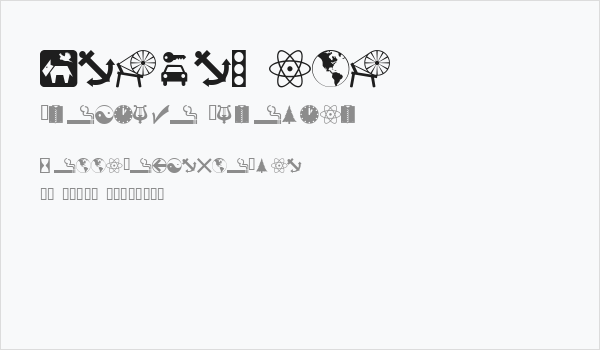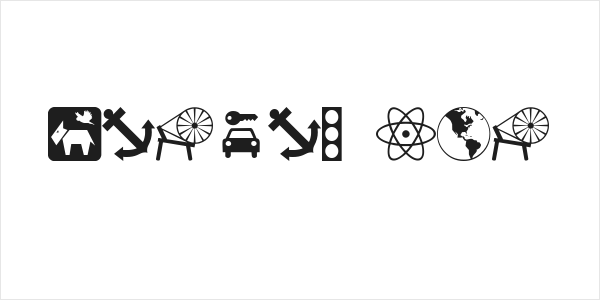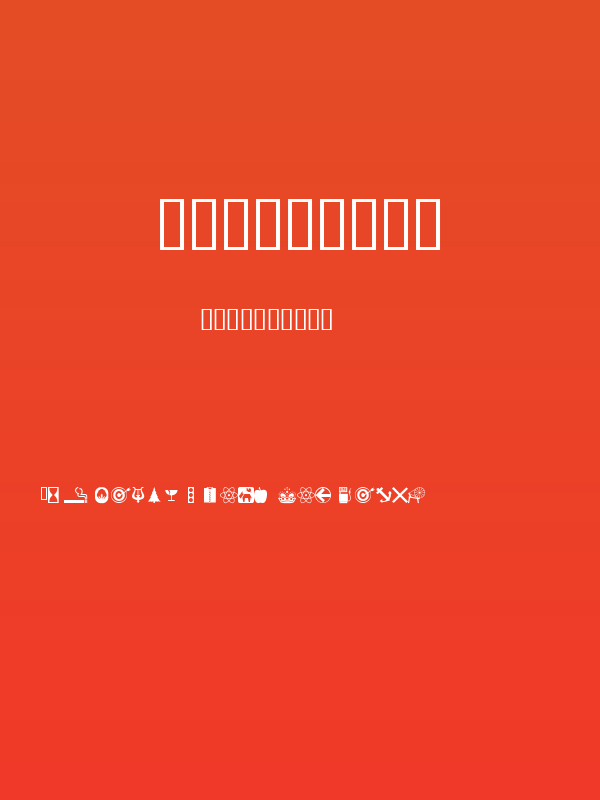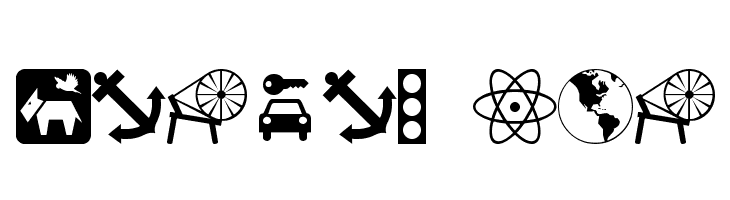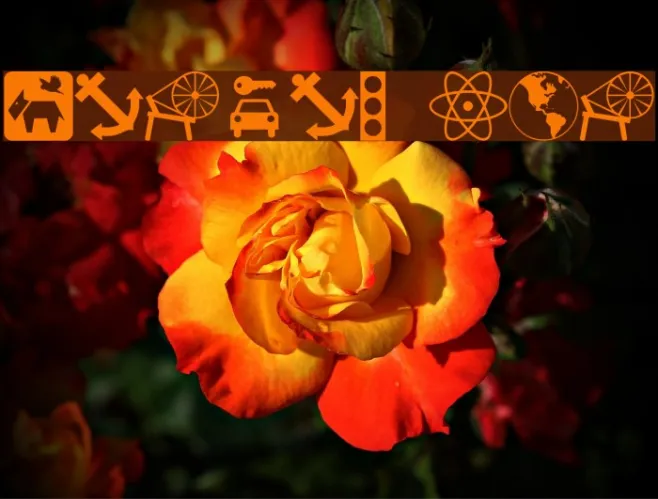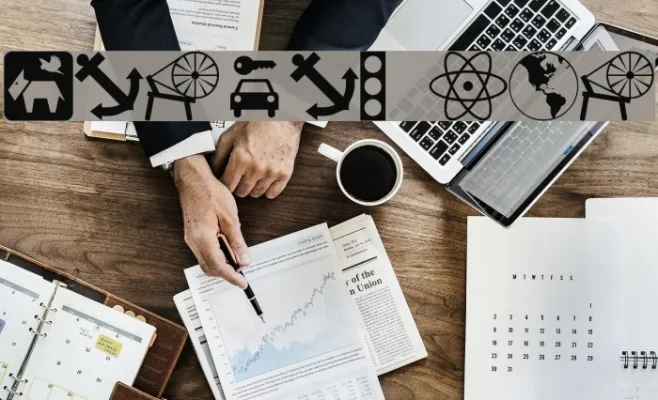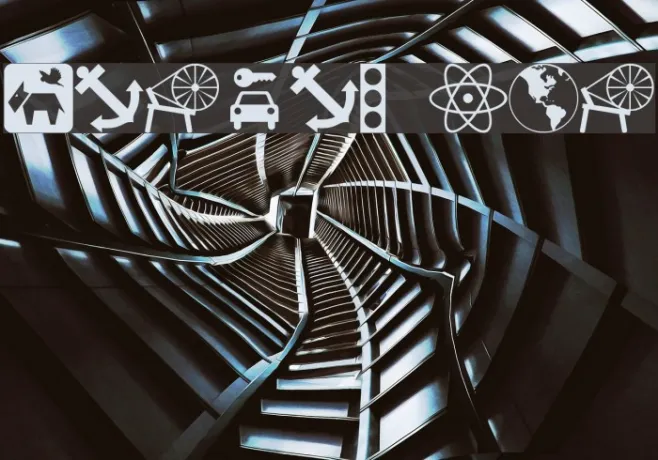
wmsymbols Font
wmsymbols Description
A collection of bold, solid black pictograms and symbols representing various objects and concepts, such as a yin-yang, tree, telephone, smoking area, crown, cup, hourglass, lyre, gas pump, wine glass, globe, anchor, apple, atom, fire, prohibition, buildings, windmill, clock, target, check mark, directional arrows, car, and copyright symbol. The icons are simple, filled, and easily recognizable.
| Overall Style | Modern, Functional, Pictographic |
| Use Case | Icons, Signage, Infographics, UI elements |
| Proposed Projects | Maps, signage, infographics, educational materials, user interfaces, wayfinding systems. |